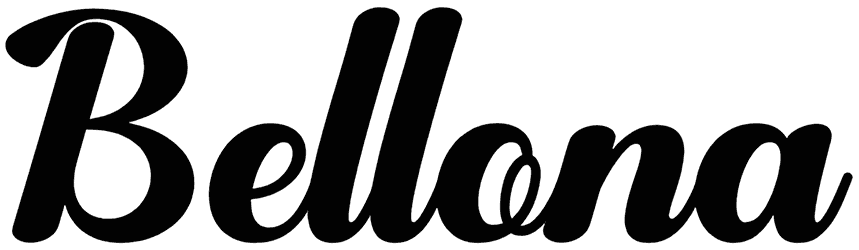
Bellona Font
It’s time to leave your stable basis and upgrade the visibility of your graphic design by absorbing a unique script font such as Bellona. With exceptional and artistic dances of letters, this wedding font serves its purpose for feasting a wide set of new ideas like feminine accessories, postcards, business cards, cosmetic packages, or stickers.
Borrow some of the compelling organic feel encapsulated in these full top-notch characters and pour it all over your projects.